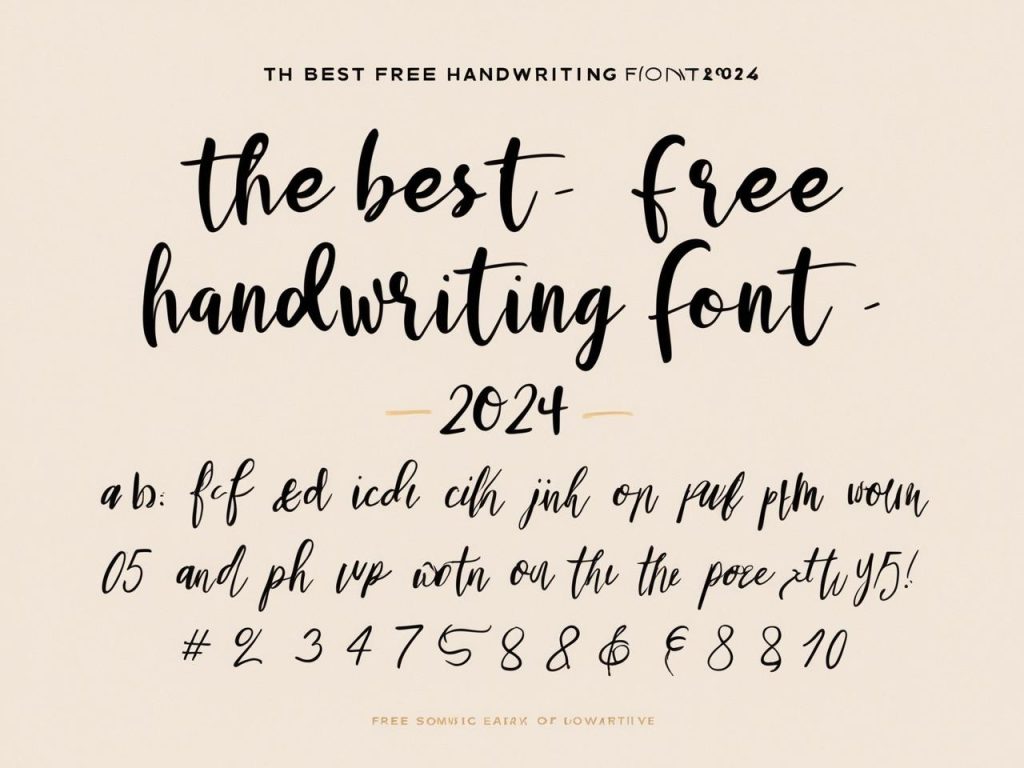
20 Best Handwriting Fonts of 2024
Handwriting fonts are a fantastic way to bring personality and warmth into your designs. Whether you’re working on a logo, invitation, or social media post, the right handwritten font can make all the difference. In 2024, these 20 fonts stand out for their creativity, style, and versatility. Let’s take a look at some of the best handwriting fonts this year!
1. Pacifico
• Style: Fun, casual script
• About: Pacifico is a playful and bold handwritten font with smooth, flowing curves. Perfect for adding a relaxed vibe to logos or posters.
2. Dancing Script
• Style: Elegant yet playful
• About: This font has a fun bounce and is perfect for casual designs that still need a touch of elegance. It’s widely used for event invitations, social media graphics, and more.
3. Great Vibes
• Style: Elegant cursive
• About: Great Vibes is a sophisticated and beautiful cursive font. It’s ideal for formal invitations or anything that needs a touch of class without being too formal.
4. Lobster
• Style: Bold, condensed script
• About: Lobster is a strong, attention-grabbing script font with a vintage feel. It works well for logos, branding, and advertising.
5. Satisfy
• Style: Clean and sleek cursive
• About: Satisfy is a stylish, smooth script with a modern feel. It’s perfect for creating sophisticated designs with a handwritten touch.
6. Allura
• Style: Elegant and refined
• About: Allura offers clean, delicate letterforms with a timeless feel. Ideal for upscale branding or classy event materials like wedding invitations.
7. Sacramento
• Style: Simple, casual script
• About: Sacramento is a neat, flowing script font with a vintage feel. It’s great for adding a bit of personality without overwhelming your design.
8. Joyful Wakayama
• Style: Elegant and smooth script
• About: A charming handwriting font with a playful yet elegant vibe, perfect for branding and posters.
9. Cookie
• Style: Sweet and smooth script
• About: Cookie has a rich, rounded cursive design that feels inviting and soft. It’s ideal for any project that requires a warm, friendly touch.
10. Doodleista
• Style: Hand-drawn, playful
• About: Doodleista has an informal, quirky handwritten style, great for adding a personal touch to greeting cards, posters, and more.
11. Yellowtail
• Style: Retro cursive
• About: Yellowtail is a vintage-inspired script font with smooth strokes and strong letterforms. It’s great for retro branding or nostalgic designs.
12. Amatic SC
• Style: Hand-drawn and quirky
• About: Amatic SC is a unique handwritten font that’s slightly irregular and whimsical. It’s perfect for projects that want to stand out and show creativity.
13. Fredericka the Great
14. Zilla Slab Hand
• Style: Handwritten with a strong presence
• About: Zilla Slab Hand combines the sturdy structure of a slab serif with a personal handwritten feel, making it a great choice for modern branding and web design.
15. Rochester
• Style: Classic and refined
• About: Rochester is a sophisticated handwritten font with elegant curves, making it perfect for high-end designs such as invitations and luxury branding.
16. Chalkboard SE
• Style: Casual, handwritten chalk-style
• About: Chalkboard SE has a relaxed, informal look that’s perfect for casual designs. It’s fun and easy to read, making it perfect for web content, menus, and classroom materials.
17. Berkshire Swash
• Style: Elegant cursive with a touch of flair
• About: Berkshire Swash is a playful yet sophisticated font with a unique, flowing design. It adds a bit of whimsy without losing its elegance, perfect for logos and branding.
18. Bellofandia
• Style: Straight Handwriting Script
• About: A flowing, sophisticated handwriting font that works beautifully in logos or wedding designs.
19. Dancing Script
Conclusion
Handwritten fonts bring a unique and personal touch to your designs. Whether you’re looking for something playful, elegant, or quirky, there’s a perfect handwriting font for every project in 2024. Dive into the world of handwritten fonts and experiment with these top picks to give your designs that authentic, human touch!